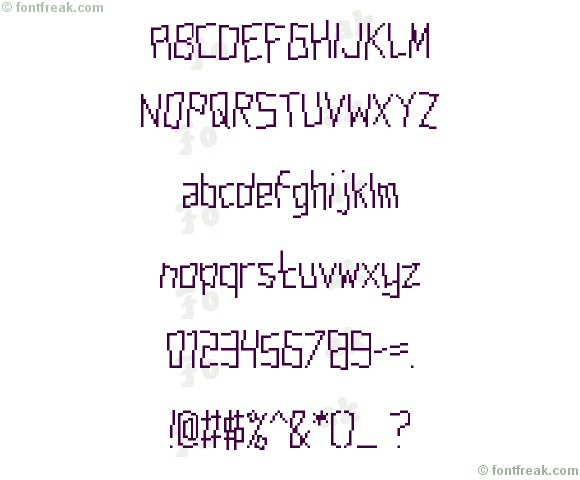
Aardvark Cwm Type Regular
About Aardvark Cwm Type Regular
Aardvark Cwm Type Regular is a unique display font designed by Andrew McCluskey in 2012, and it falls into the category of decorative typefaces. This font showcases a distinctive visual style characterized by its playful, irregular letterforms that evoke a sense of whimsy and creativity. The stroke weight is consistent yet varies subtly throughout, adding a dynamic quality to the text. The overall spacing between the characters is wide, enhancing readability while maintaining an artistic flair. This font is devoid of traditional decorative elements, allowing its quirky shapes to take center stage.
Ideal for a variety of creative applications, Aardvark Cwm Type Regular shines in settings such as children's book covers, playful branding projects, and eye-catching advertising campaigns. Its unconventional look makes it particularly suitable for creative industries, including graphic design and content creation, where a bold statement is essential. Additionally, small business owners looking to inject personality into their logos and promotional materials will find this font a valuable asset.
The target audience for Aardvark Cwm Type Regular includes graphic designers, content creators, and anyone seeking a distinctive typeface that stands out in a crowded marketplace. Whether used in social media graphics, event flyers, or signage, this font captures attention and communicates a sense of fun.